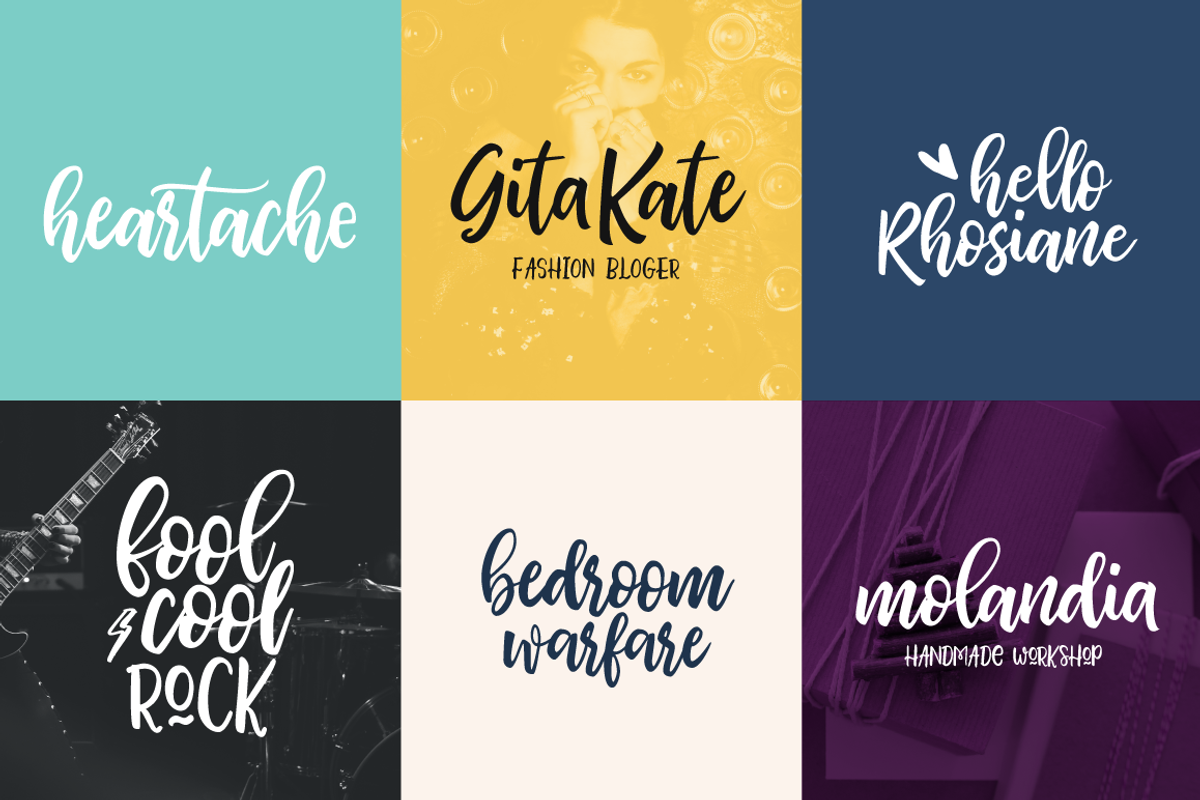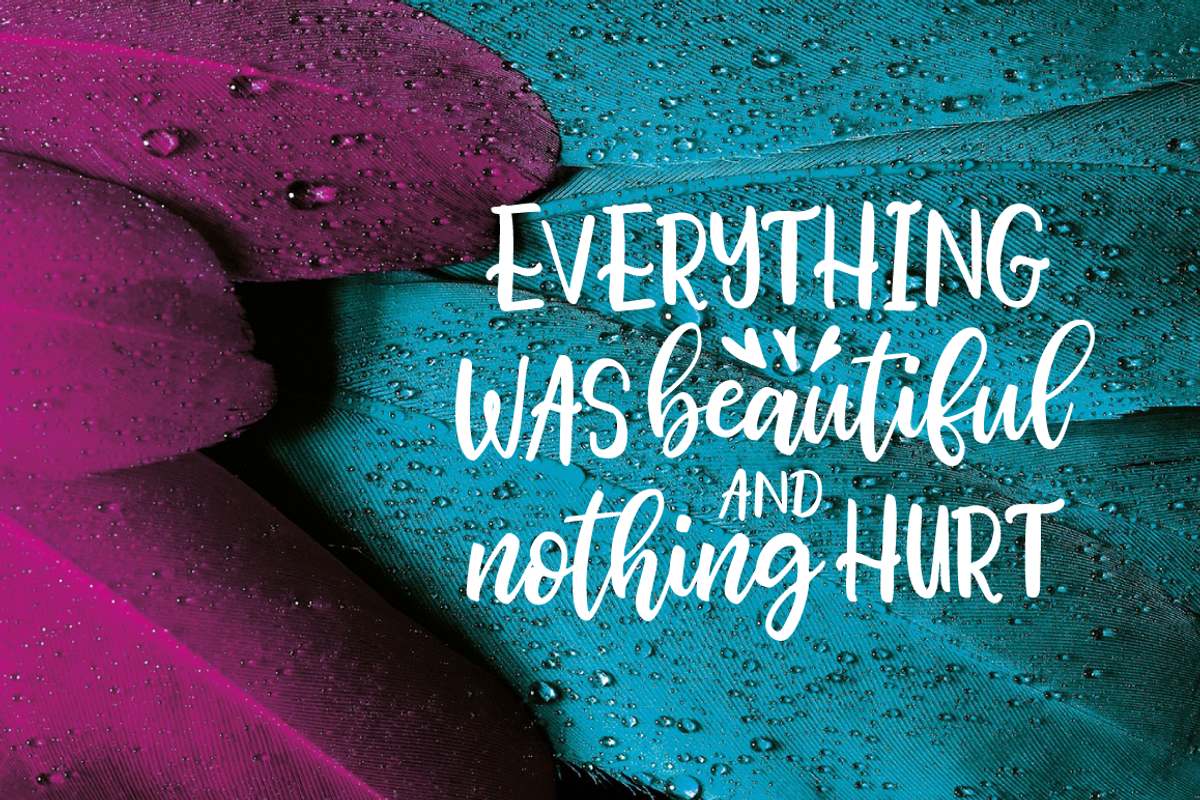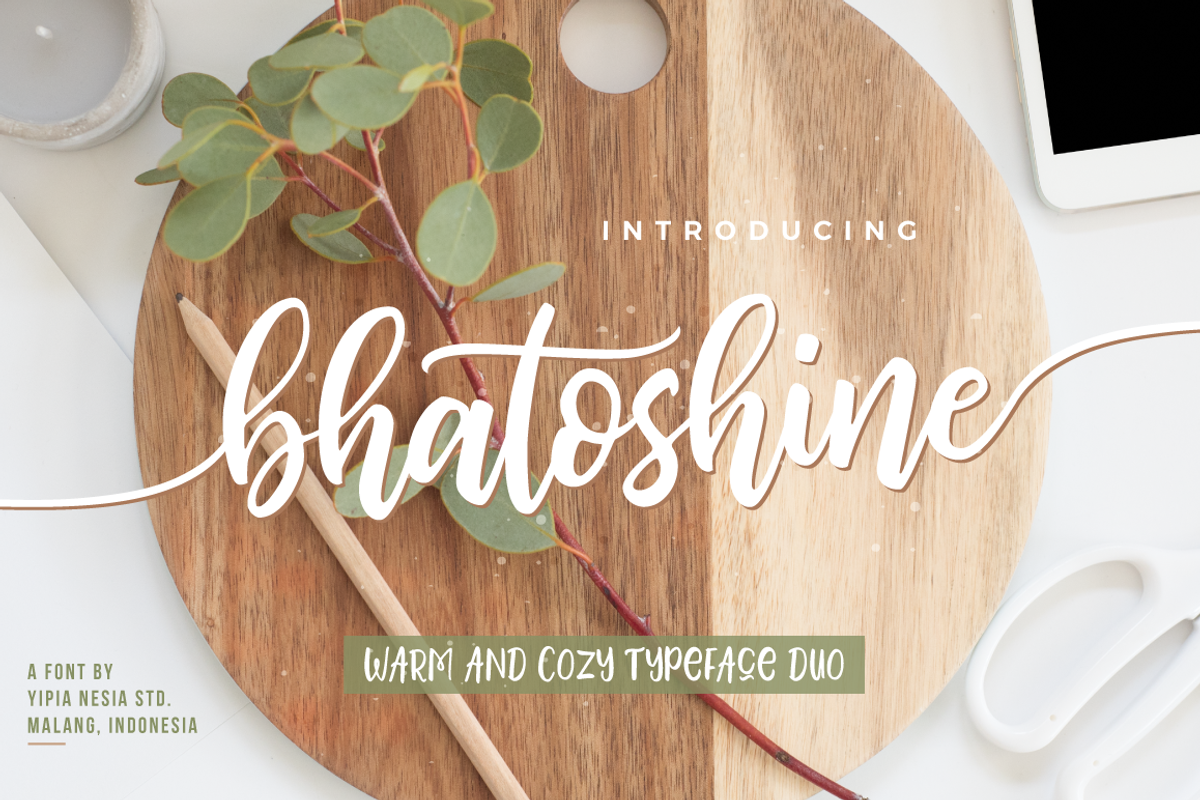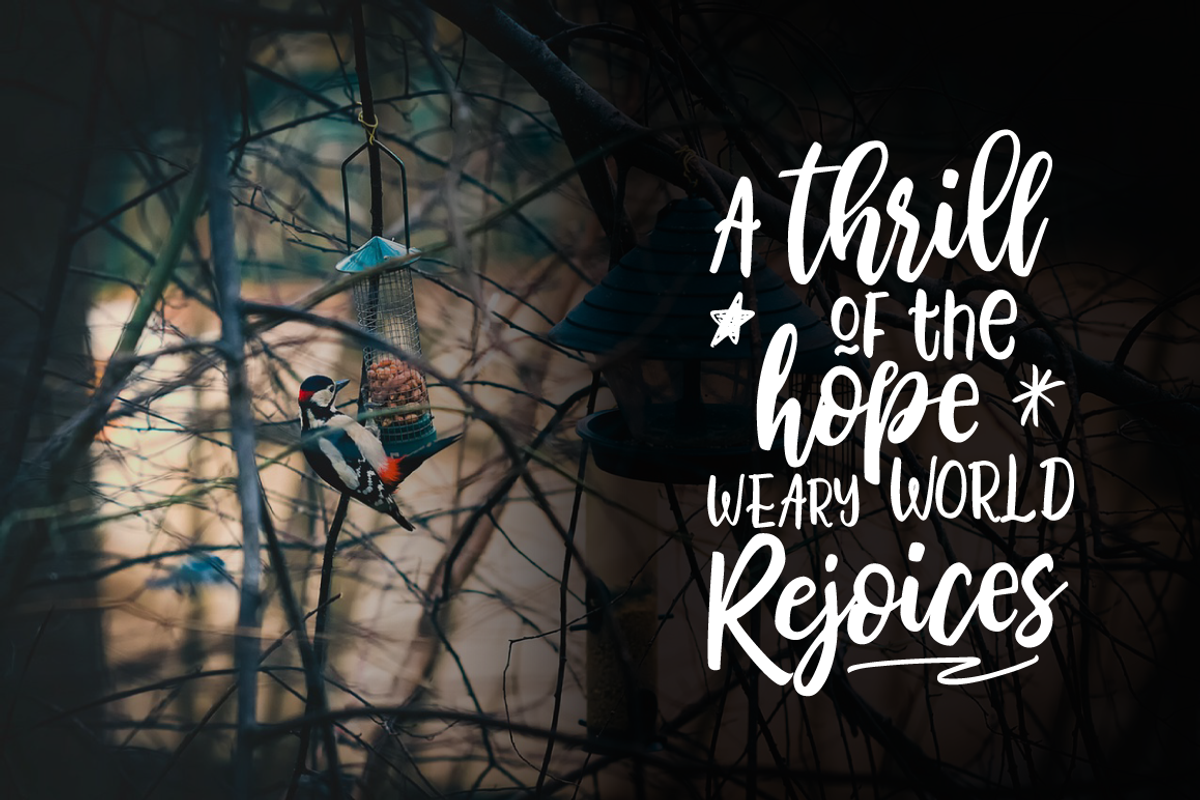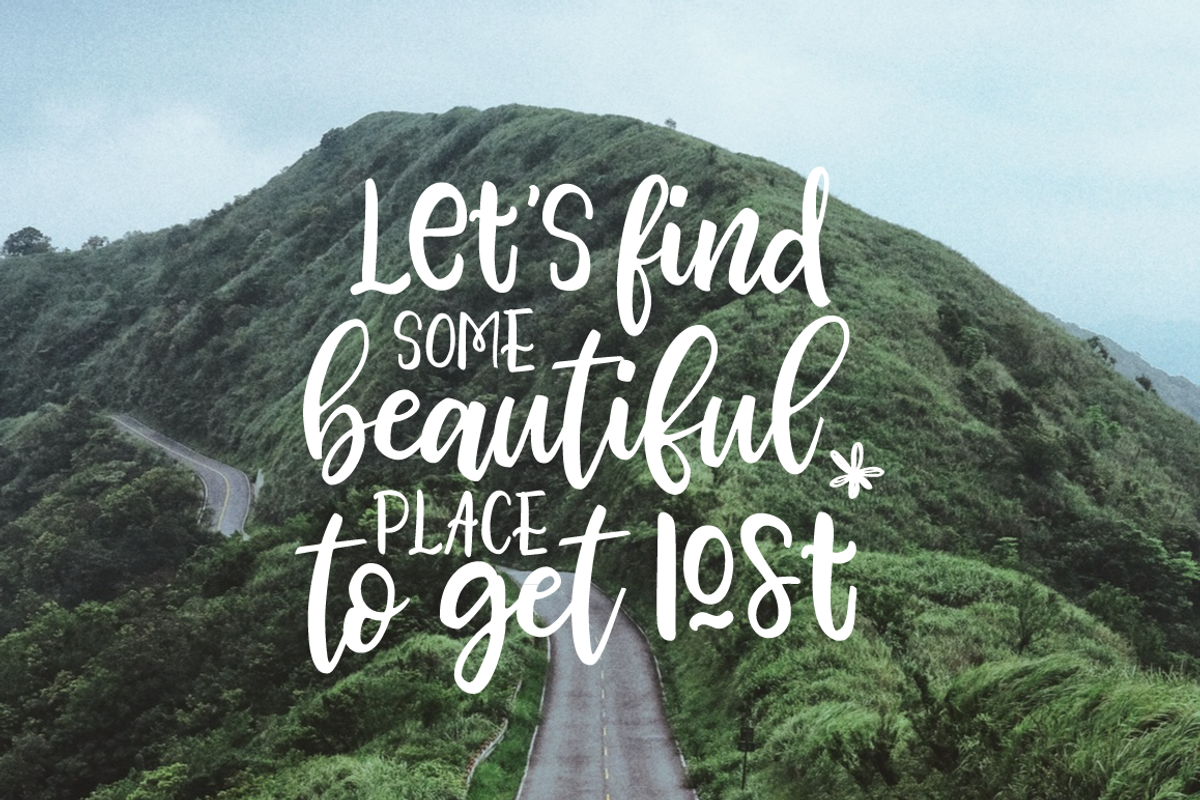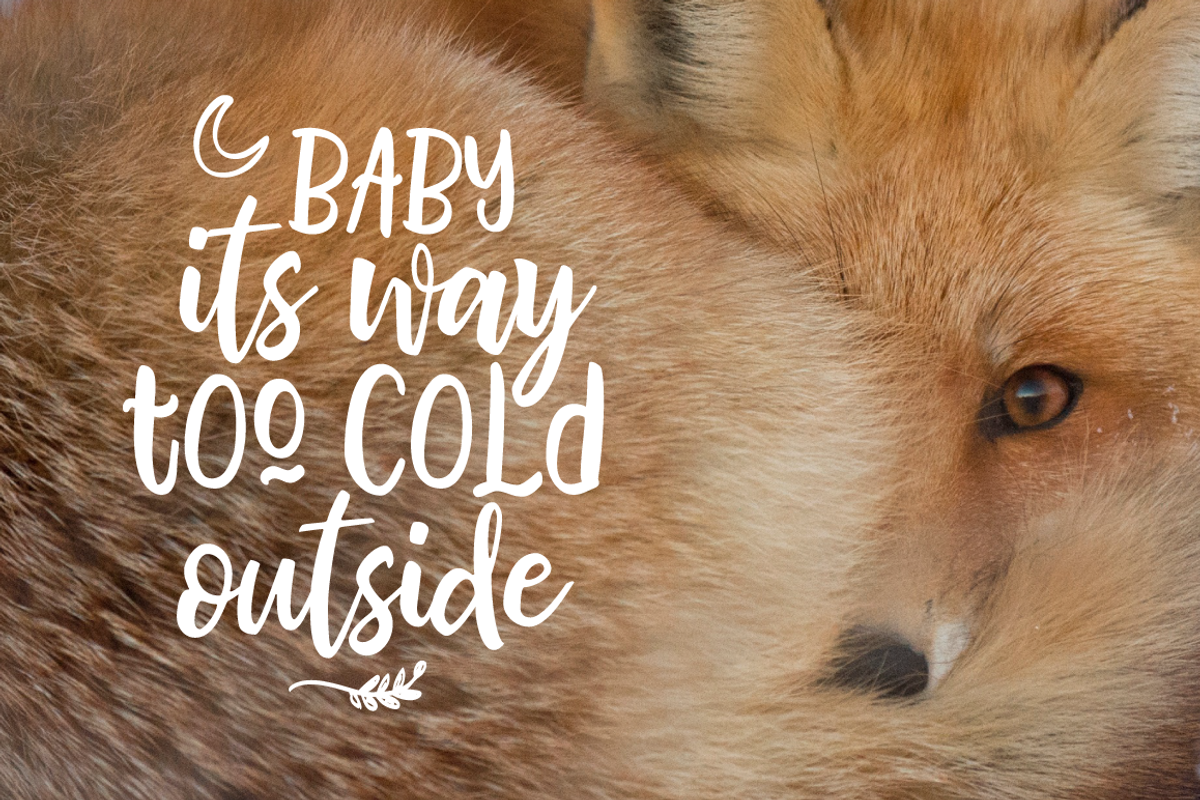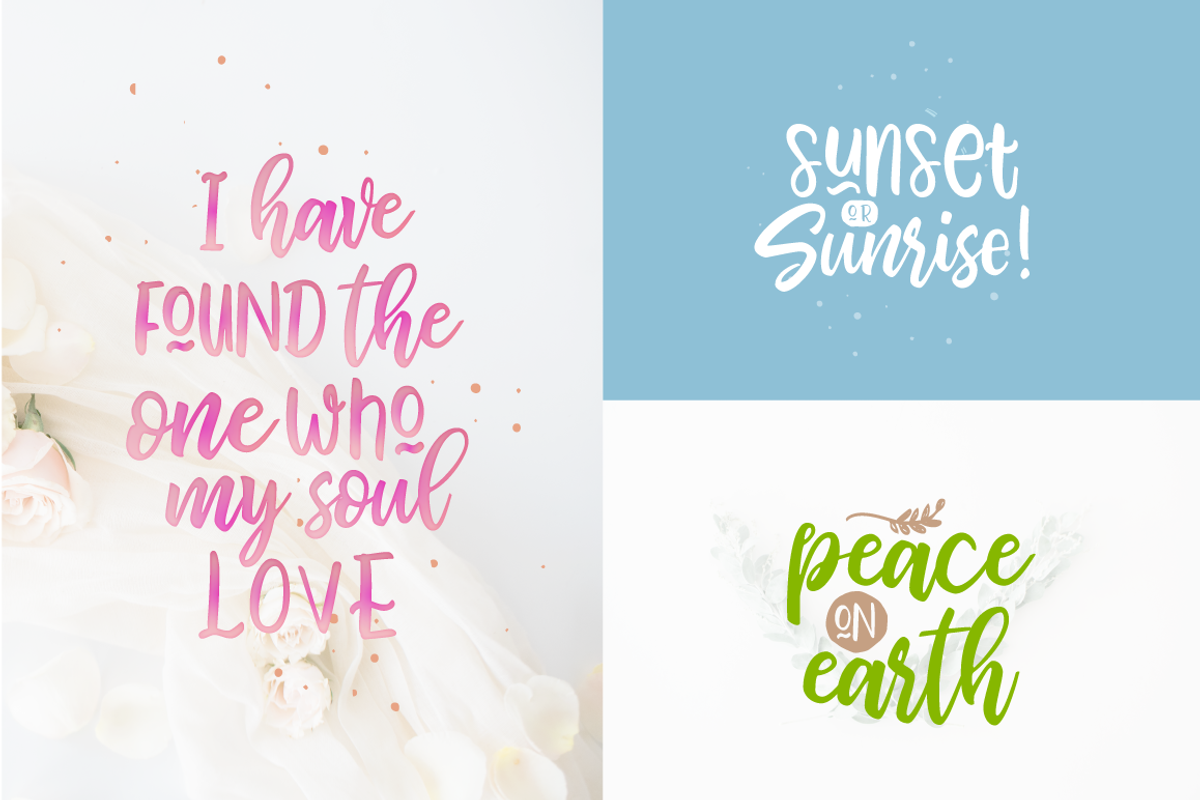
Bhatoshine - Fancy Font Duo
Bhatoshine - Fancy Font Duo by Typia Nesia is a font selected for branding, posters, packaging, typography.
- Includes a range of multilingual support.
- And other Glyphs variation of the OpenType features such as Stylistic Alternates, Stylistic Sets and some Ligatures.
- Alternates are available for lowercase characters.
Why Bhatoshine - Fancy Font Duo is worth a look
Bhatoshine - Fancy Font Duo by Typia Nesia fits naturally into Branding, posters, packaging, typography.